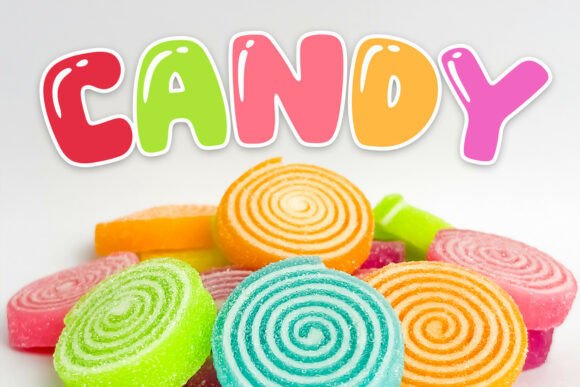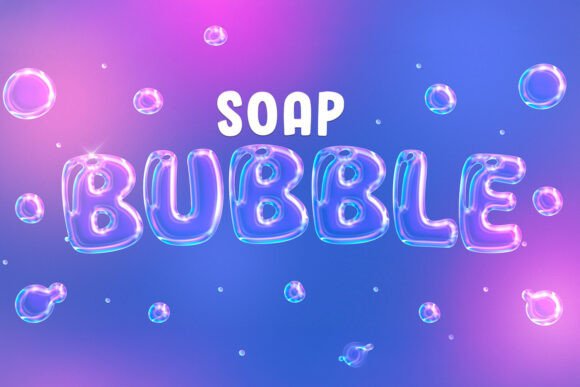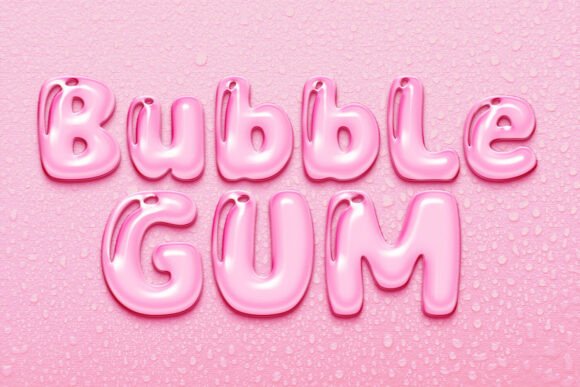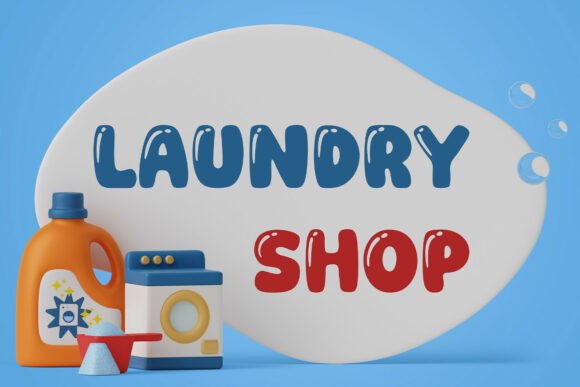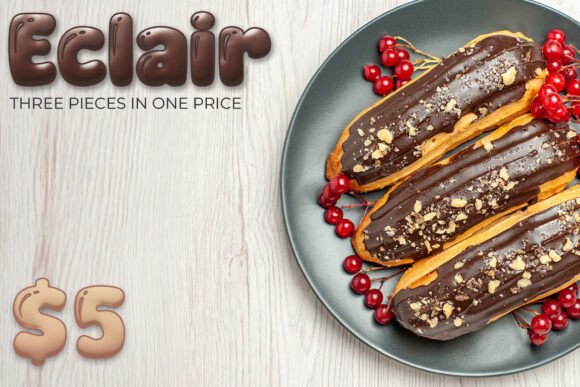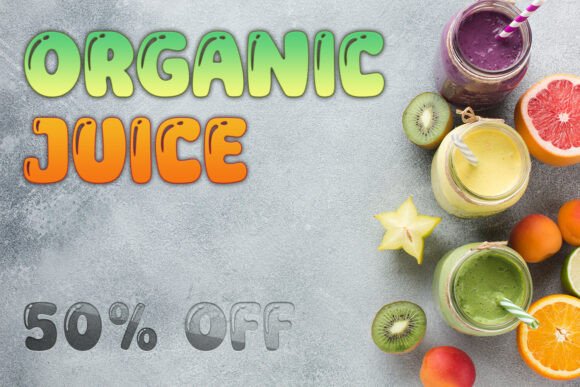
Elevate Your Designs with Bubbly: The Ultimate Glossy Display Font
Have you ever been in the middle of a design project, and suddenly, it feels like something’s missing? You’re not alone! I recall working on a children’s book project, and no matter how hard I tried, the text just wouldn’t pop. That’s when I discovered Bubbly, a game-changing glossy display font that instantly elevated my design. In this article, we’ll dive into the world of Bubbly, exploring its features, uses, and what makes it a must-have for designers and creative hobbyists alike.
What Makes Bubbly Special?
Bubbly is a high-quality, 3D-inspired font designed to add a touch of luxury and playfulness to your creative projects. Its premium rounded characters feature a polished finish, making it perfect for bold and eye-catching designs. Whether you’re a professional designer or a hobbyist crafter, Bubbly offers an elegant and playful aesthetic that’s sure to make your work stand out.
An Honest Review of Bubbly
- ✨ Unique and playful design: Bubbly’s puffy, balloon-like appearance is sure to grab attention and add a touch of fun to your designs.
- ✅ High-quality and versatile: This font is perfect for a wide range of projects, from craft projects and SVG designs to party invitations and social media graphics.
- ✅ Elegant and luxurious feel: Bubbly’s polished finish and rounded characters give it a premium look that’s perfect for high-end designs.
- ⚠️ May not be suitable for body text: Due to its bold and playful design, Bubbly may not be the best choice for large blocks of text.
- ⚠️ Some characters may require manual kerning: As with any font, you may need to adjust the kerning of certain characters to achieve optimal results.
The Designer Inspiration Behind Bubbly
The story behind Bubbly begins with a young designer named Emma, who was tasked with creating a unique font for a children’s book project. Emma wanted to create a font that was both playful and elegant, with a touch of luxury. After months of experimentation, Bubbly was born. Today, Bubbly is a beloved font among designers and creative hobbyists, known for its versatility and eye-catching design.
Q: Is Bubbly suitable for body text?
A: While Bubbly is a beautiful font, it may not be the best choice for large blocks of body text. Its bold and playful design makes it more suitable for headlines and titles.